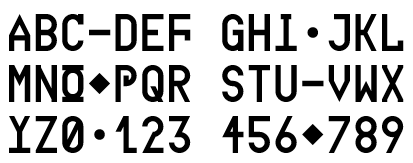
Alphabet: A, B, C, D, E, Digamma, G, H, Upside Down T, J, K, L, M, N, O + Macron + Underline, Weird P, Q, R, S, T, U, V, W, X, Upside Down T With Letter V On Top, Z.
Numbers: 0, 1 Without Left Serif, 2 Without Sooth, 3, 4, 5, 6, 7, 8, 9.